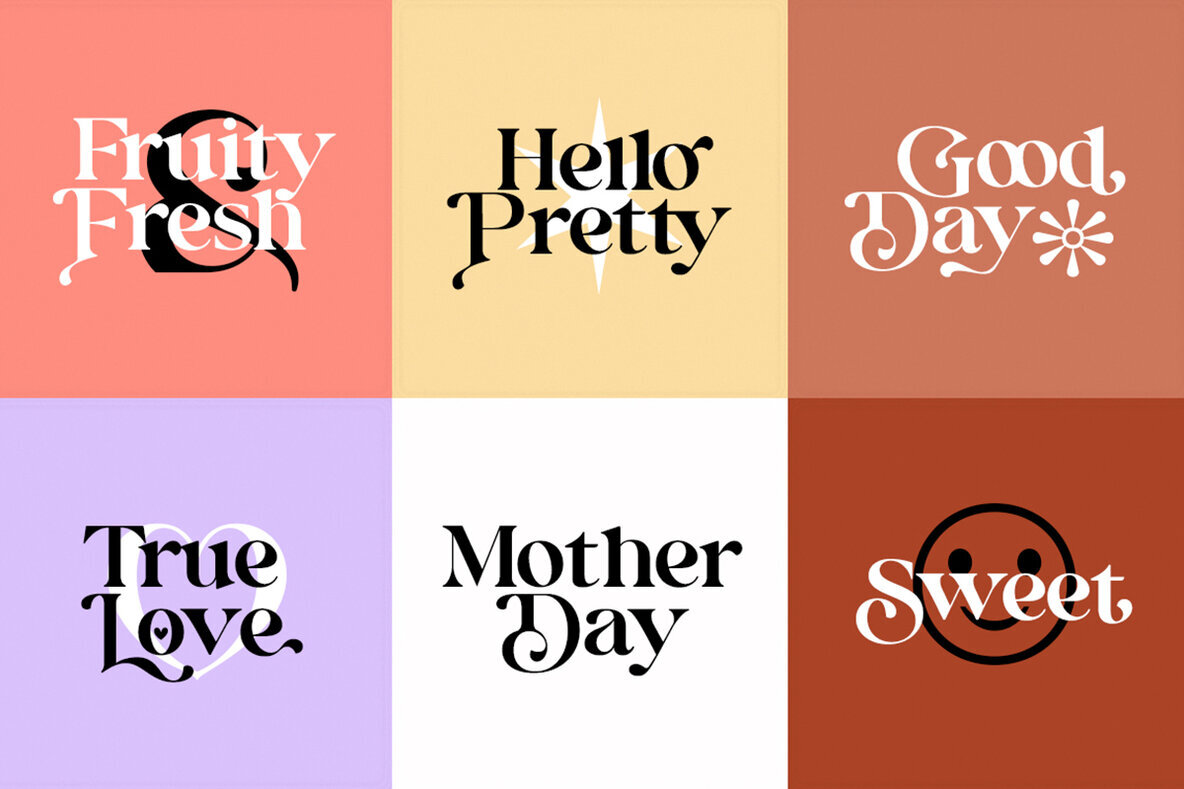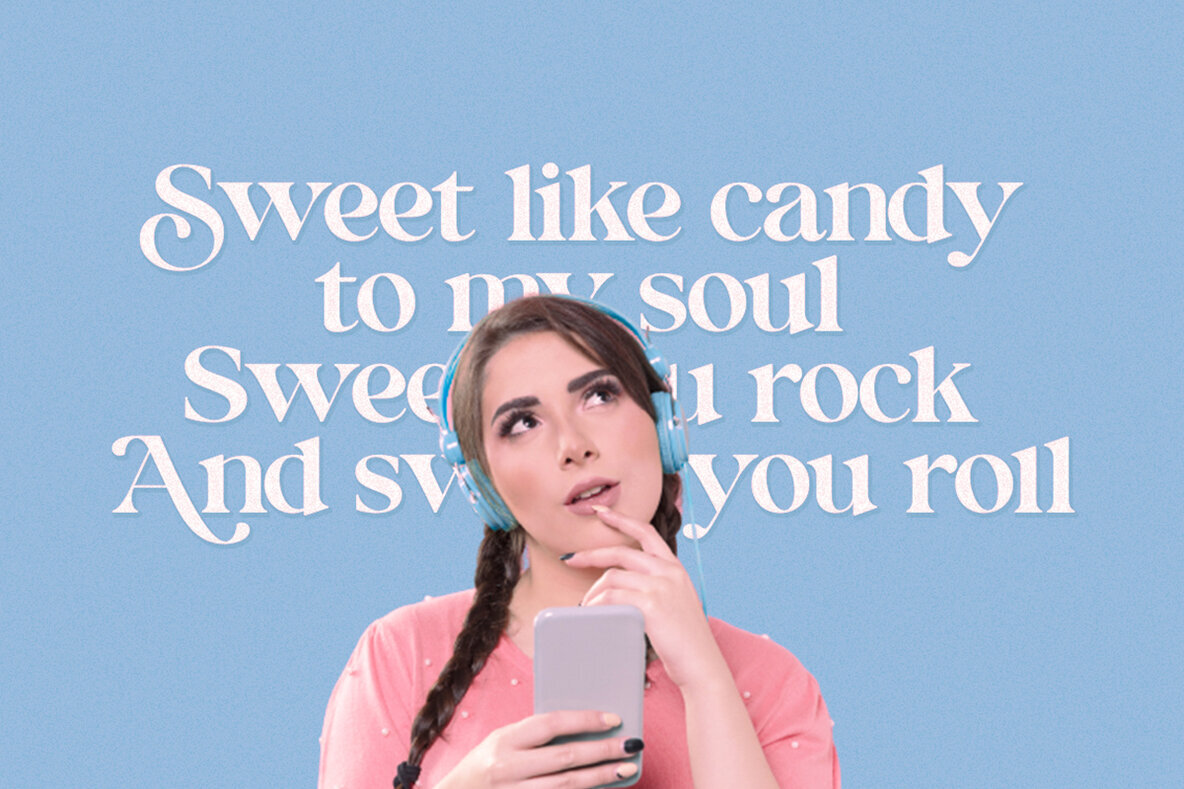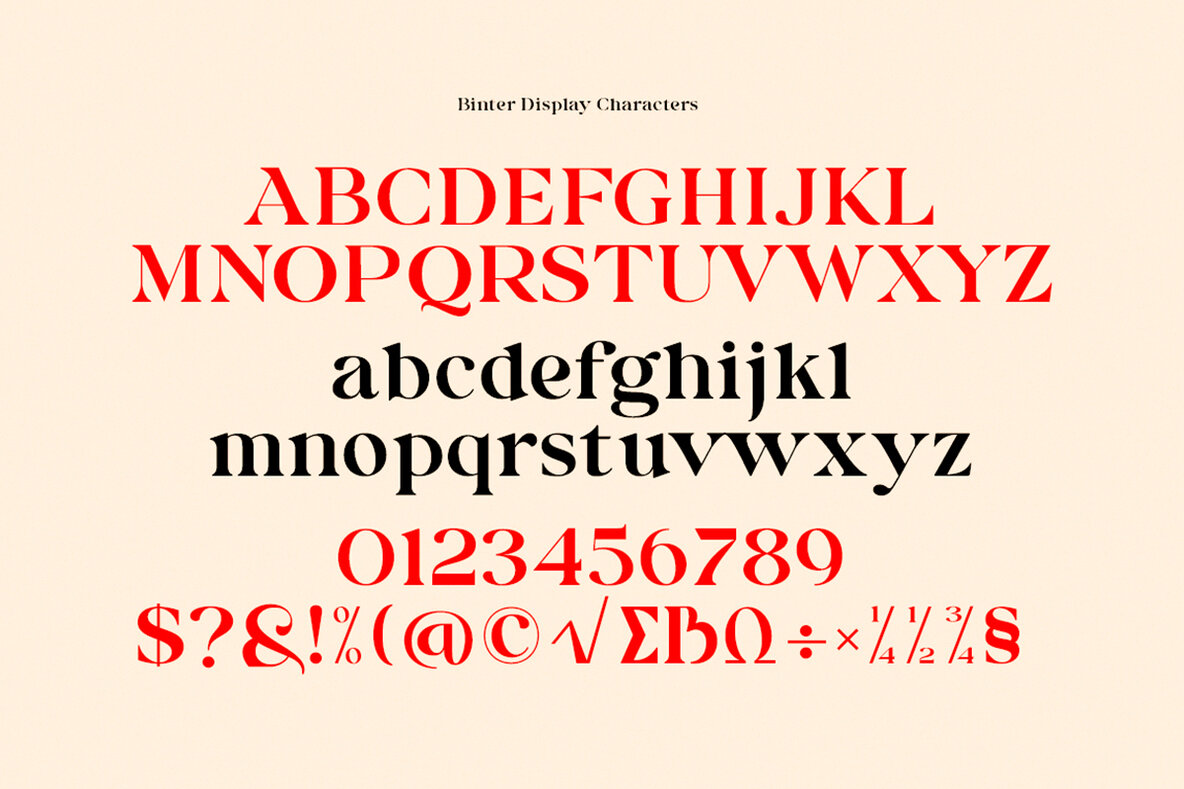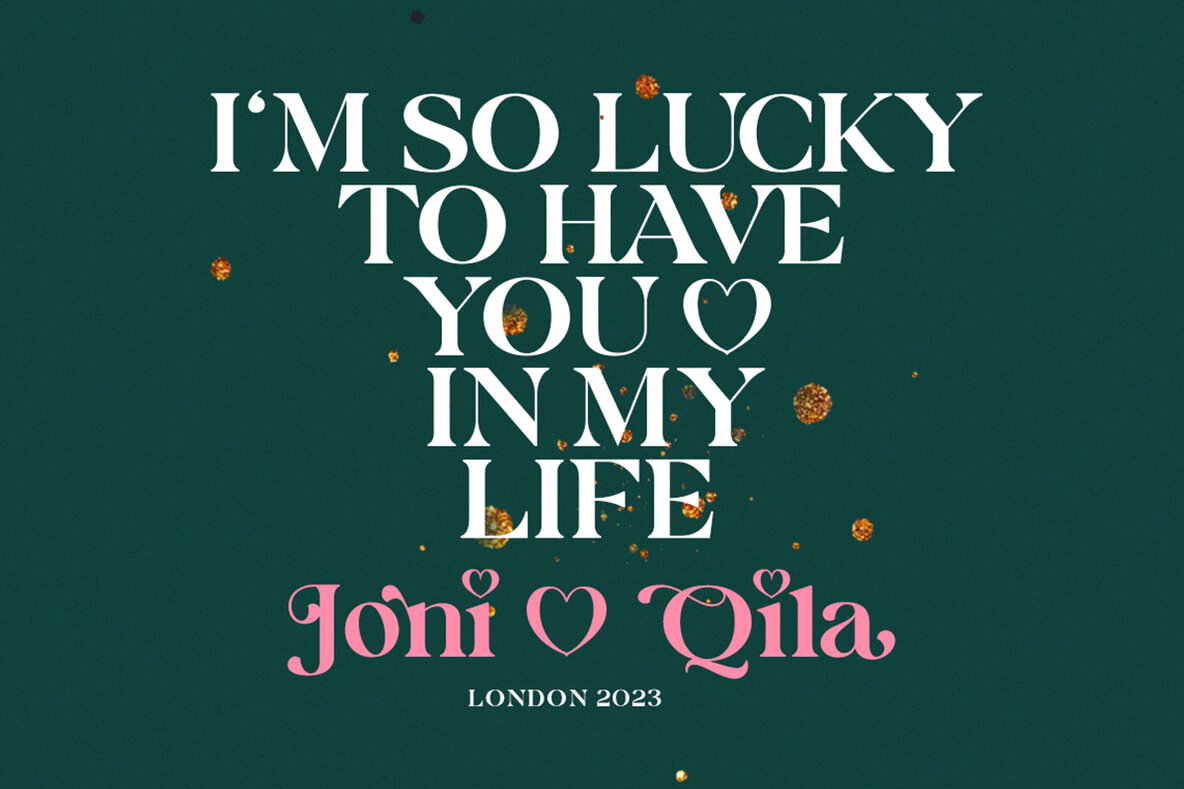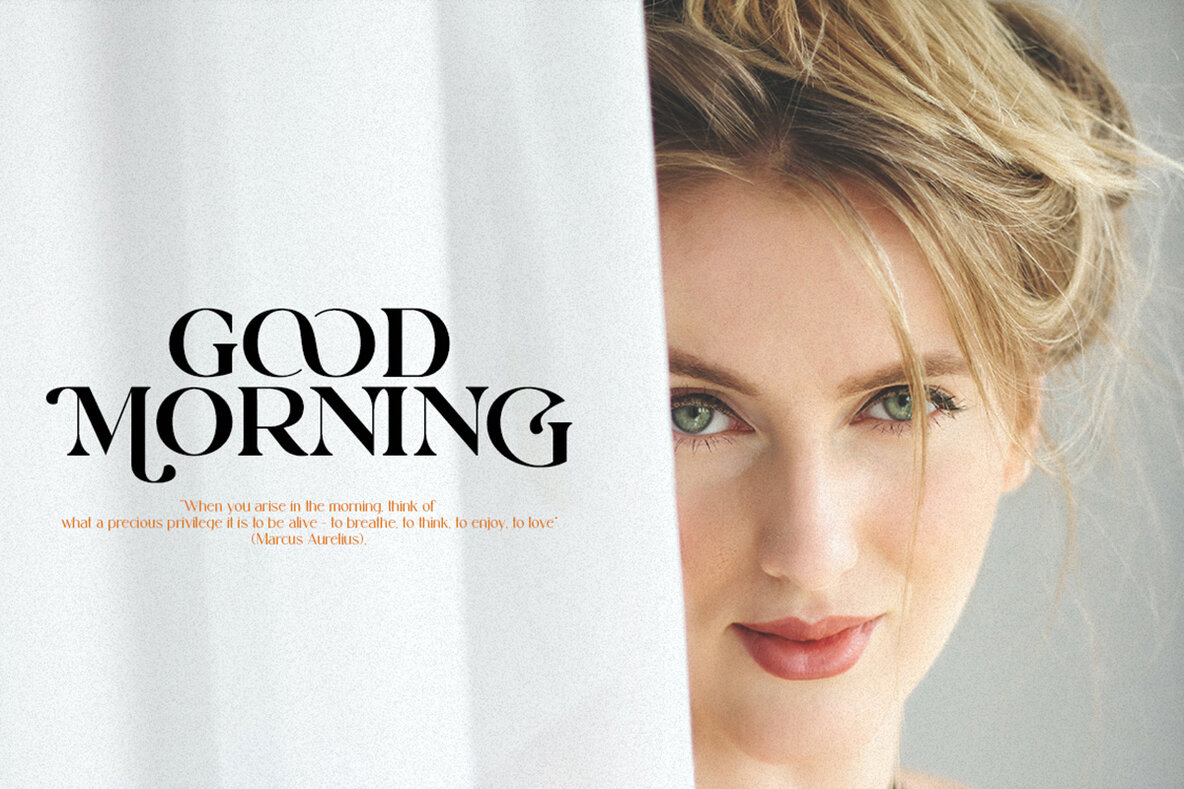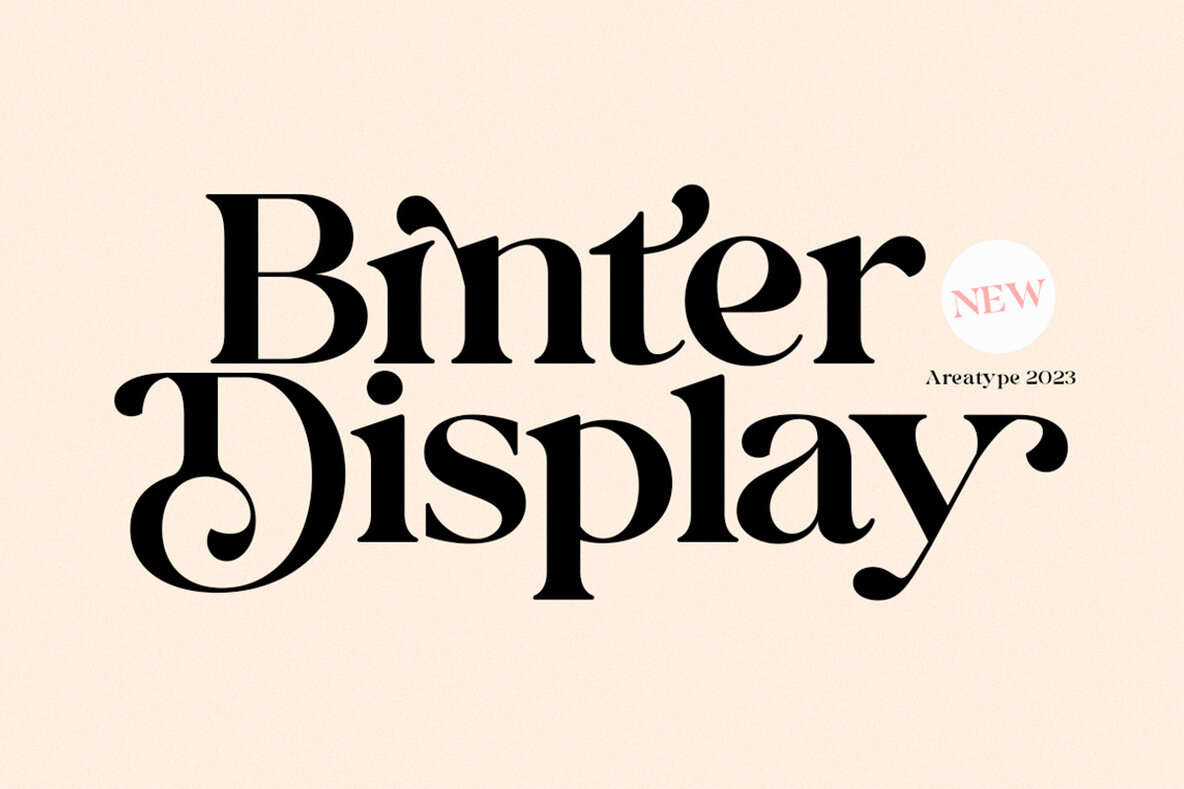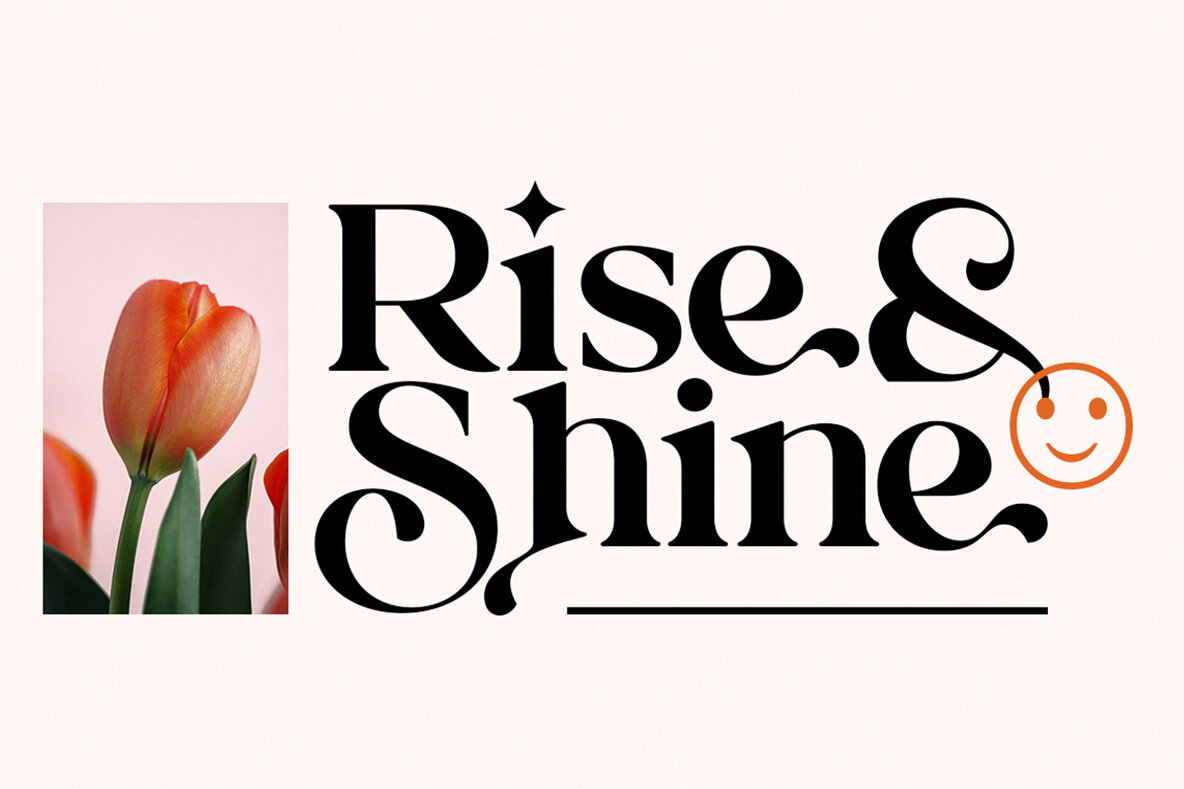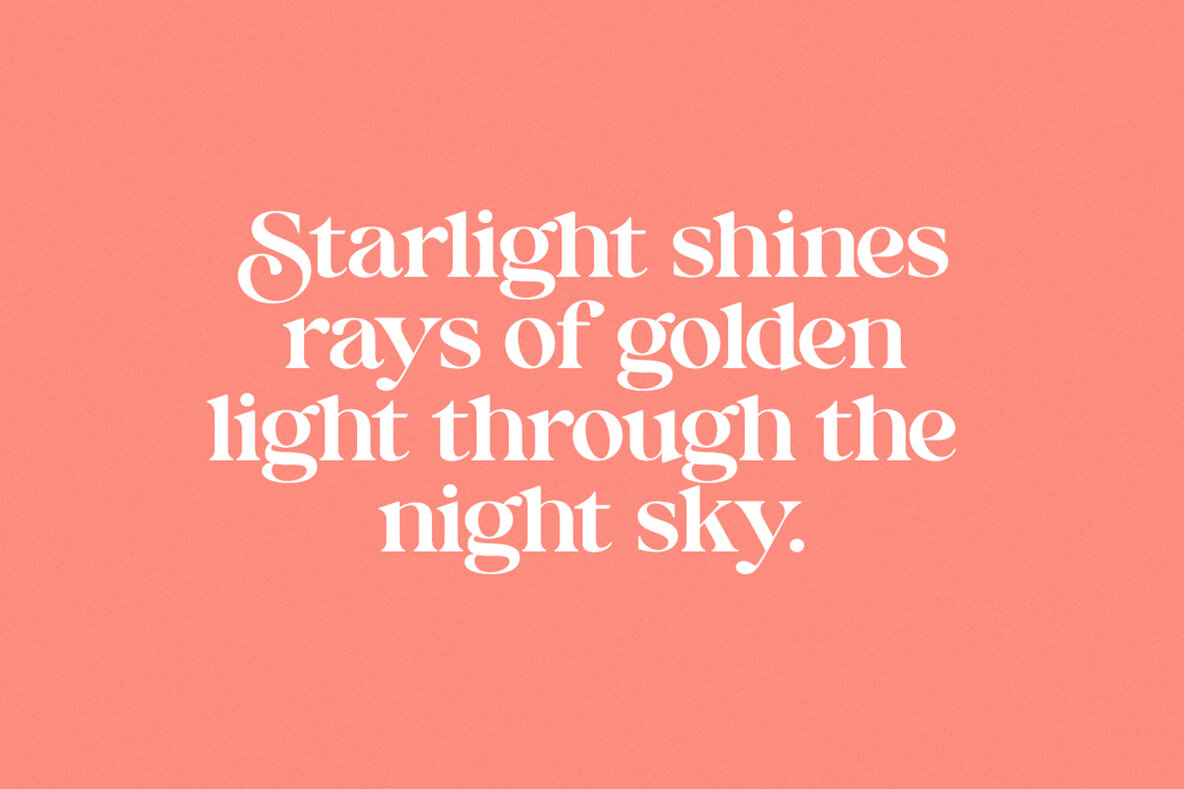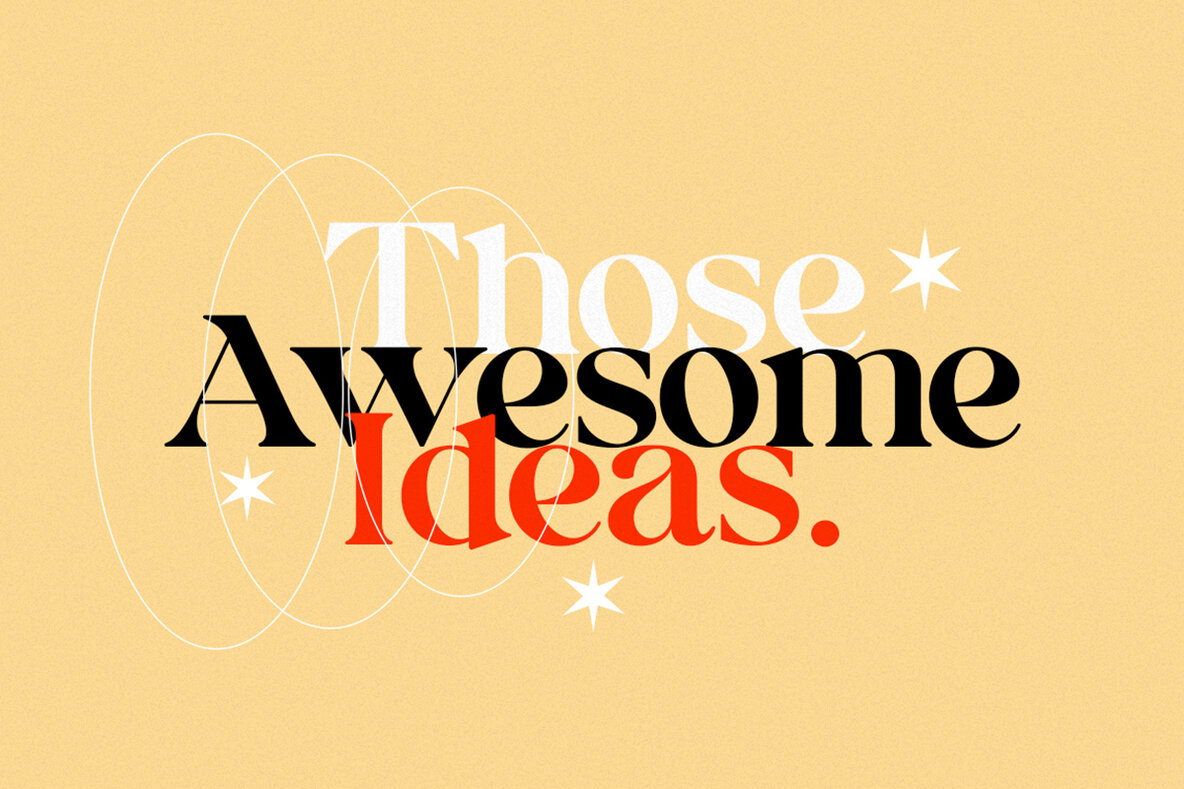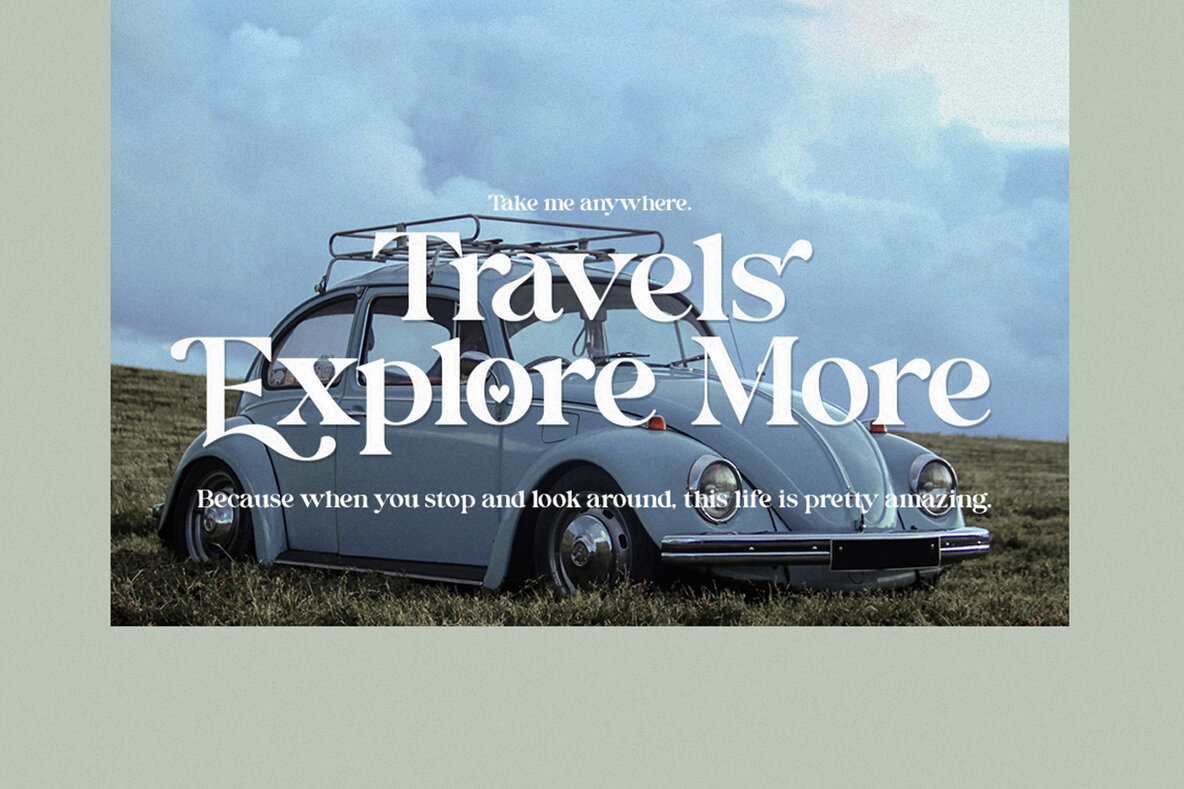
Binter Display Font
Binter Display Regular
Binter Display font is a versatile choice for a wide range of design projects. Whether you're working on magazine images, wedding invitations, branding, poster design, or anything else, Binter Display font's clean and modern design will elevate your work. Its versatile style makes it a great choice for both professional and creative projects, giving you the flexibility to create designs that stand out.